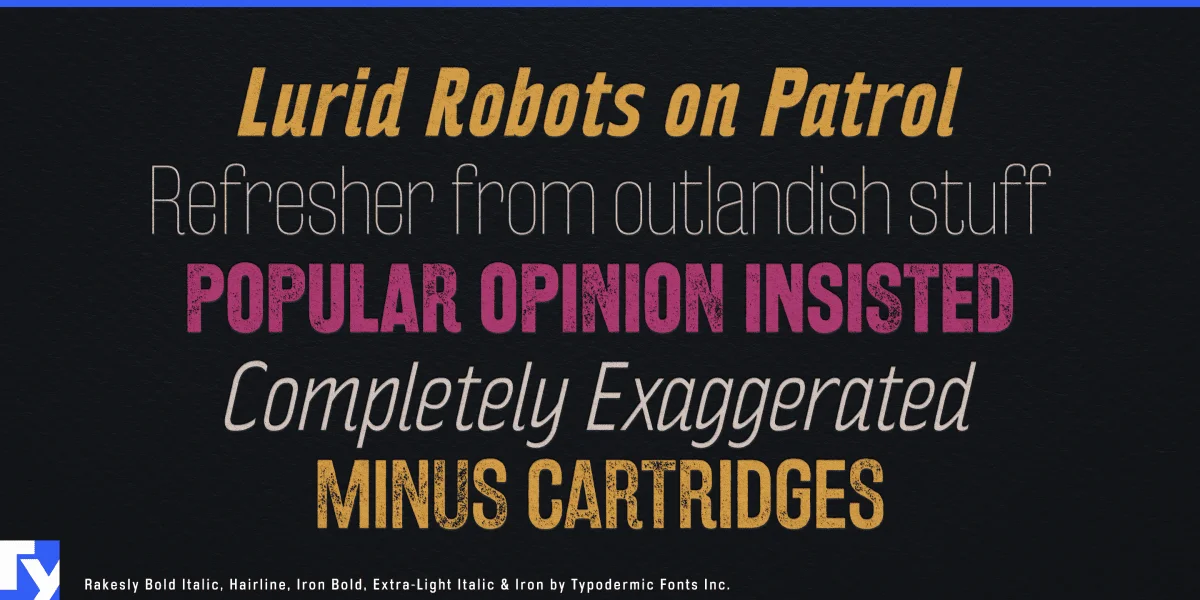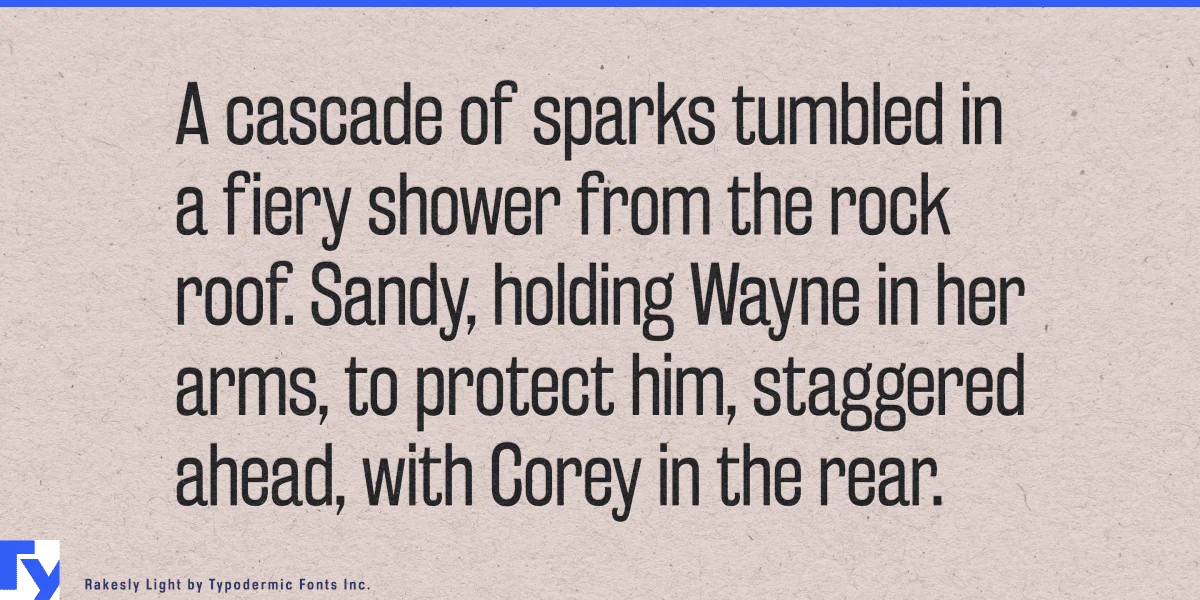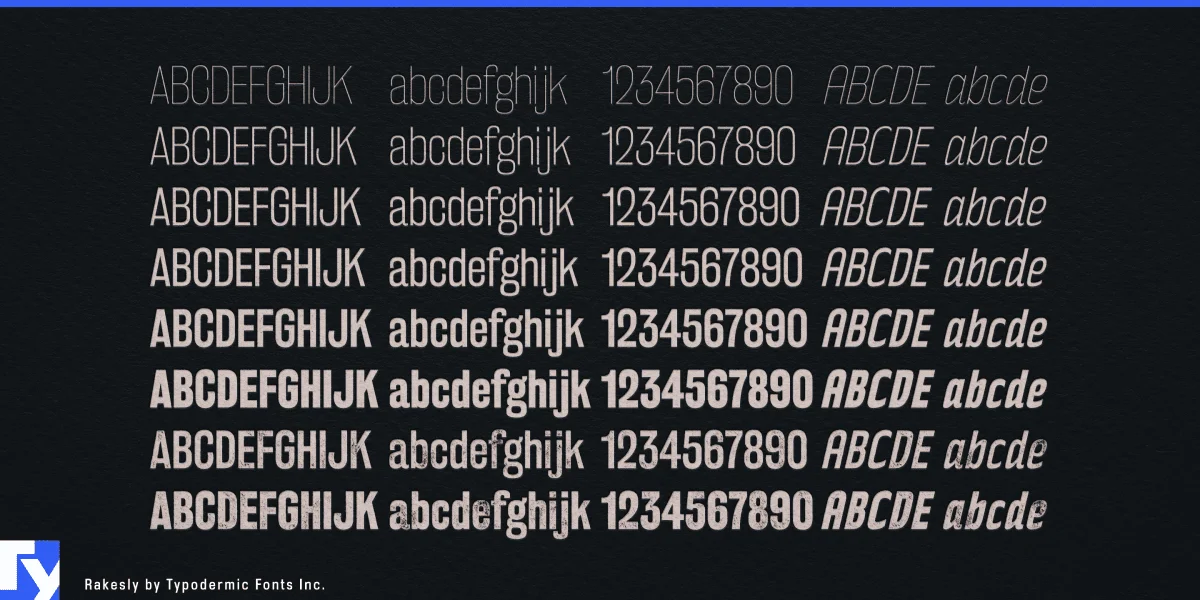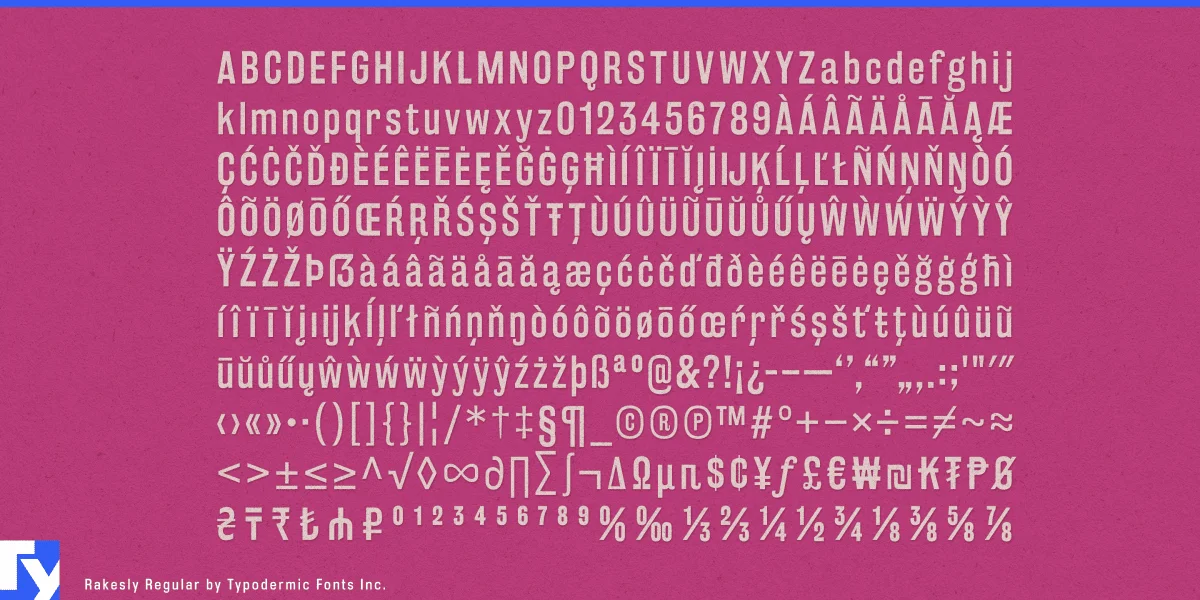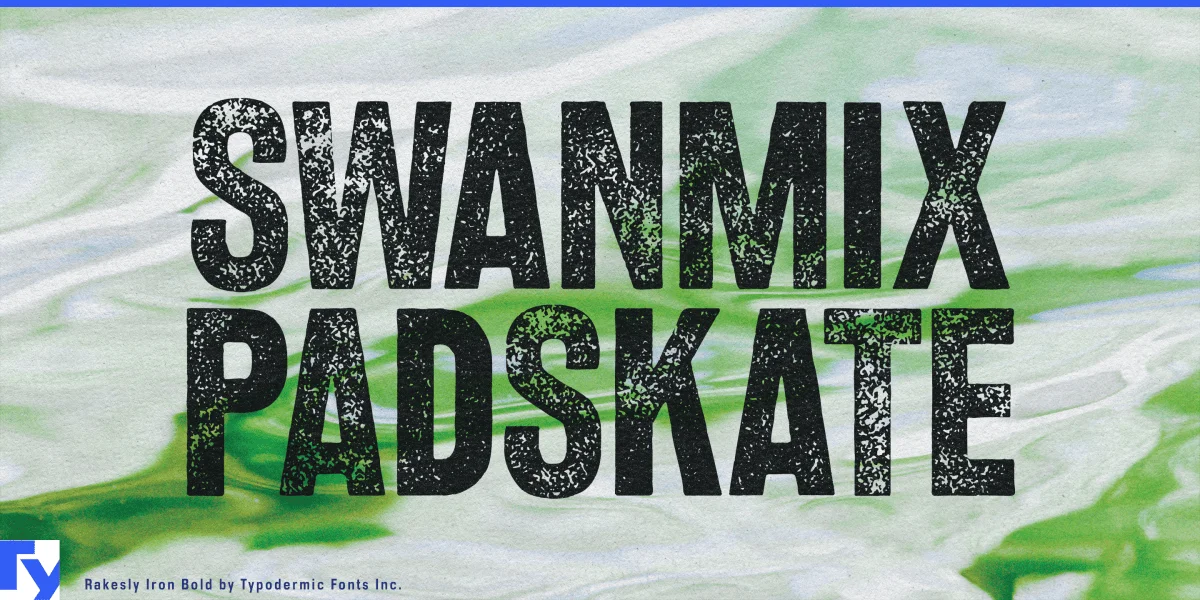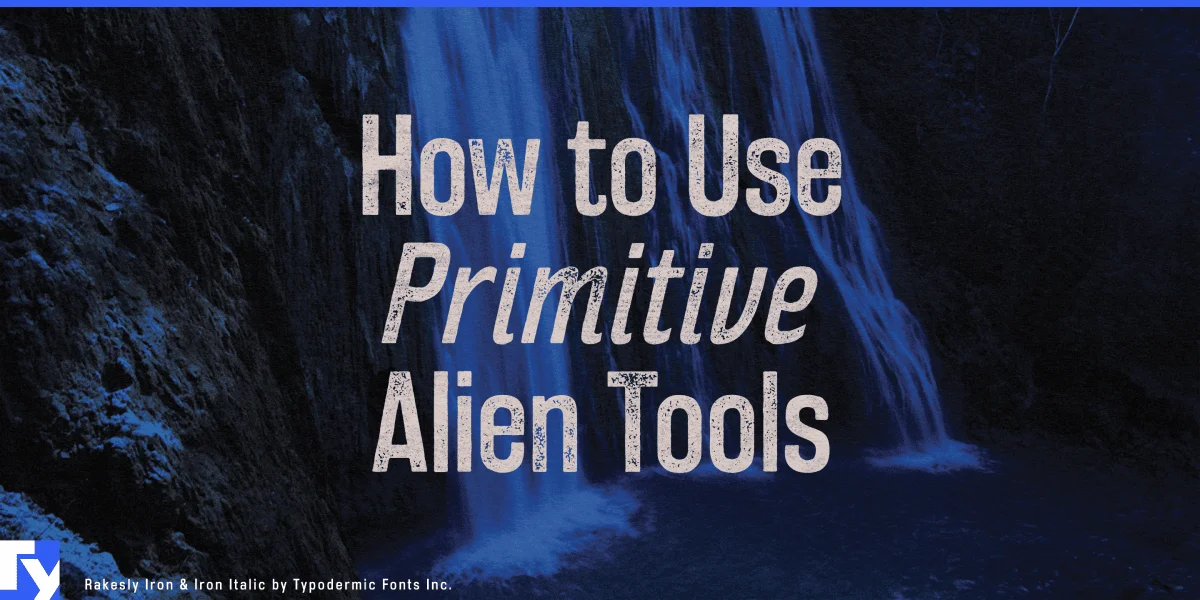
Prepare to tantalize your designs with Rakesly, the compact, grotesque headliner that serves up a feast for the eyes. This zesty typeface doesn't just communicate—it captivates, infusing your messages with a piquant charm that's impossible to ignore.
Rakesly's DNA is a masterful blend of late 19th and early 20th-century sans-serif metal typefaces, reimagined for the modern palate. Its upright styles are a curated selection of the most delectable features from this rich typographic heritage. The italics, meanwhile, bring a dash of Art Deco flair, evoking the industrial chic of a bygone era. With six weights and their italic counterparts, Rakesly offers a full spectrum of flavors. From the gossamer-light Ultra-Light to the bold and robust heavier weights, there's a perfect choice for every typographic recipe. Garnish your designs with OpenType fractions, numeric ordinals, mathematical symbols, and a smorgasbord of currency glyphs—Rakesly has all the ingredients for typographic excellence.
Craving some texture? Sink your teeth into Rakesly Iron—four grainy, letterpress styles that add a tactile dimension to your work. Available in Regular, Italic, Bold, and Bold Italic, these styles bring an artisanal touch to digital designs. For the typography gourmand, Rakesly's OpenType contextual alternates automatically shuffle three letter/numeral variations, creating a rich, organic effect that's sure to satisfy. Typography connoisseurs will relish the Iron styles' private use (PUA) encoding, allowing for manual access to alternate characters—a feature as rare and sought-after as a vintage wine. Rakesly speaks volumes in a multitude of tongues, fluently covering most Latin-based European writing systems. From Afrikaans to Zulu, your message will resonate with authenticity and style across borders and cultures.